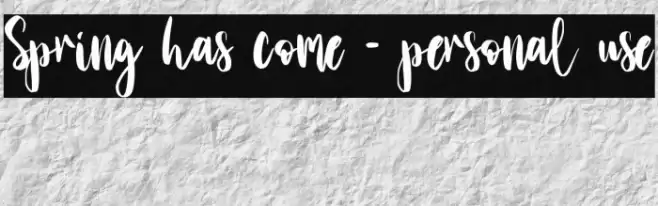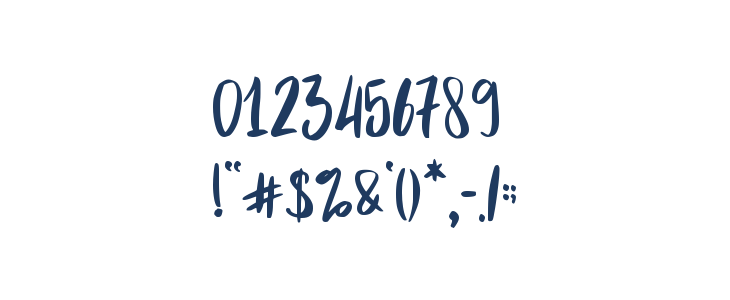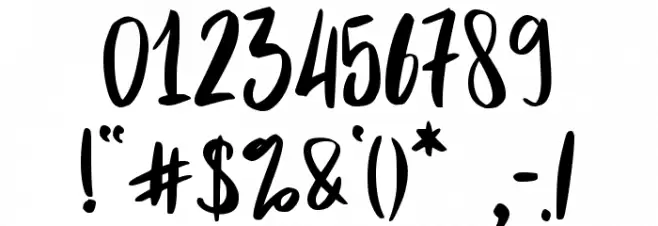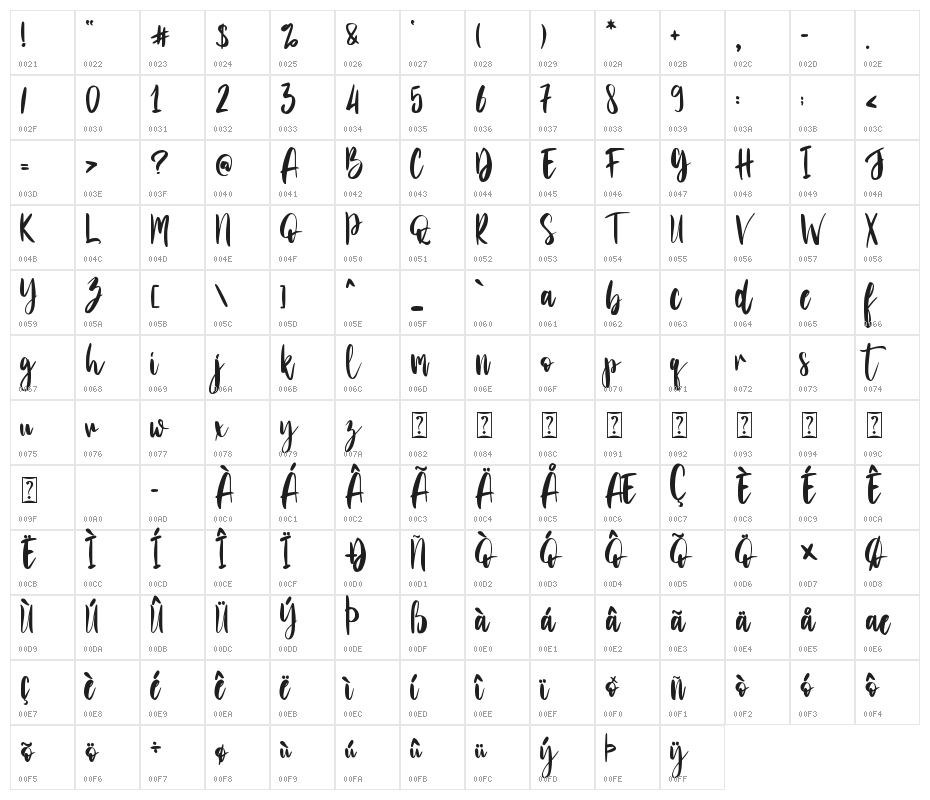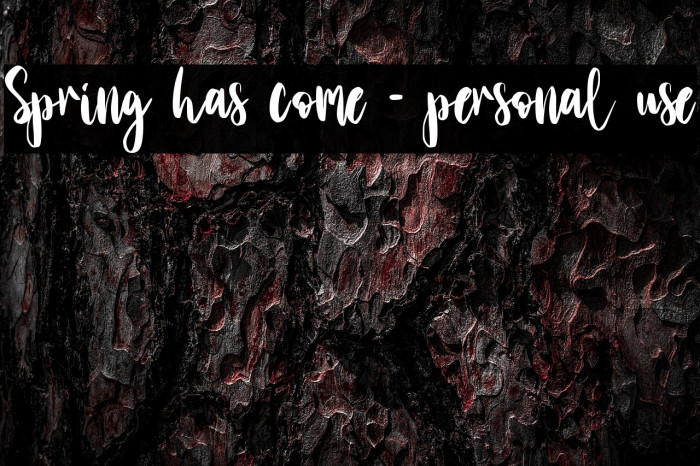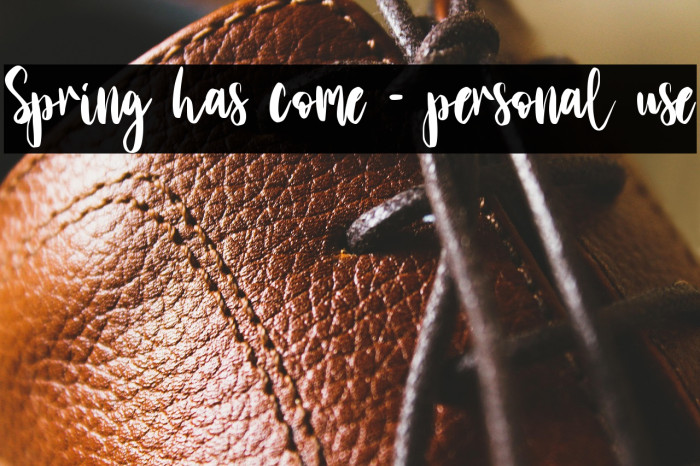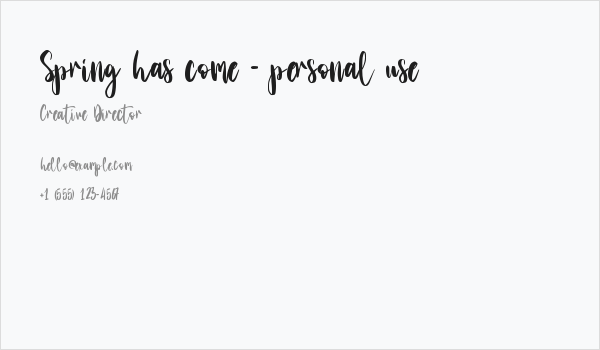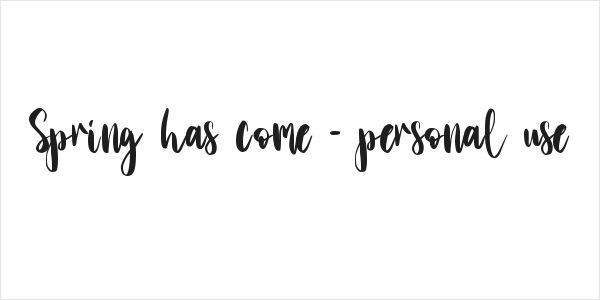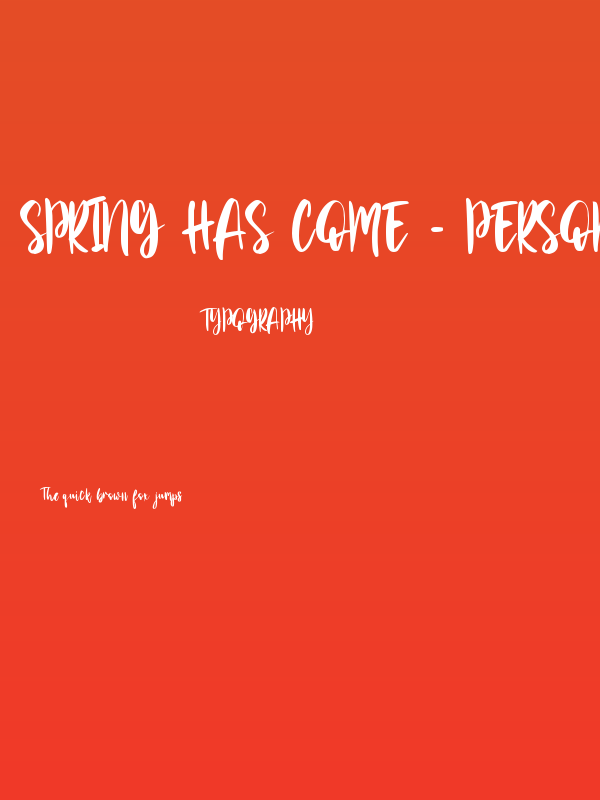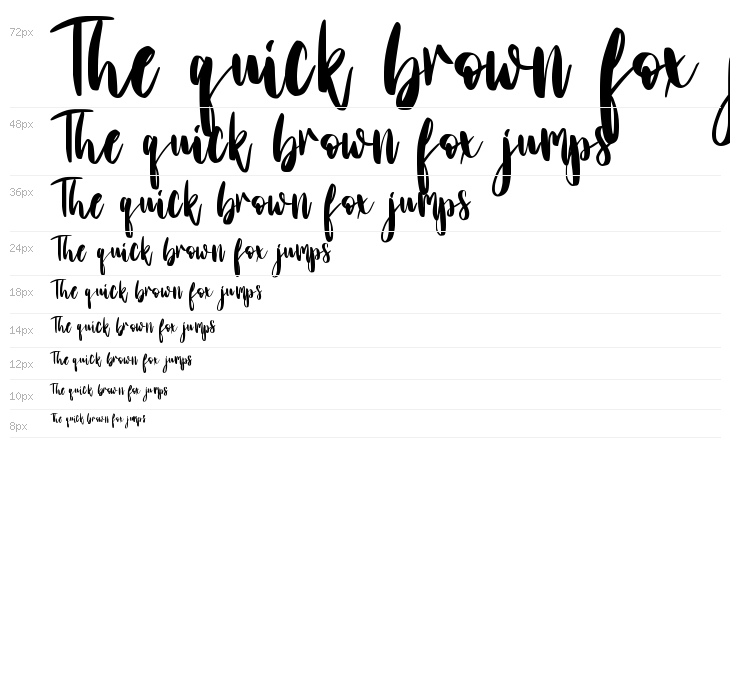
Spring has come - personal use Font
Spring has come - personal use Description
This font features a lively and expressive handwritten style, characterized by its bold, flowing strokes and dynamic curves. The letters are crafted with a sense of movement, giving the text an energetic and informal appearance. The uppercase and lowercase letters maintain a consistent style, with a playful yet legible design. Numbers and special characters are integrated seamlessly, maintaining the overall aesthetic. The font's thick strokes and varying line widths contribute to its bold presence, making it ideal for creative and eye-catching designs.
A bold, expressive handwritten font with dynamic curves and lively strokes from Regular fonts.